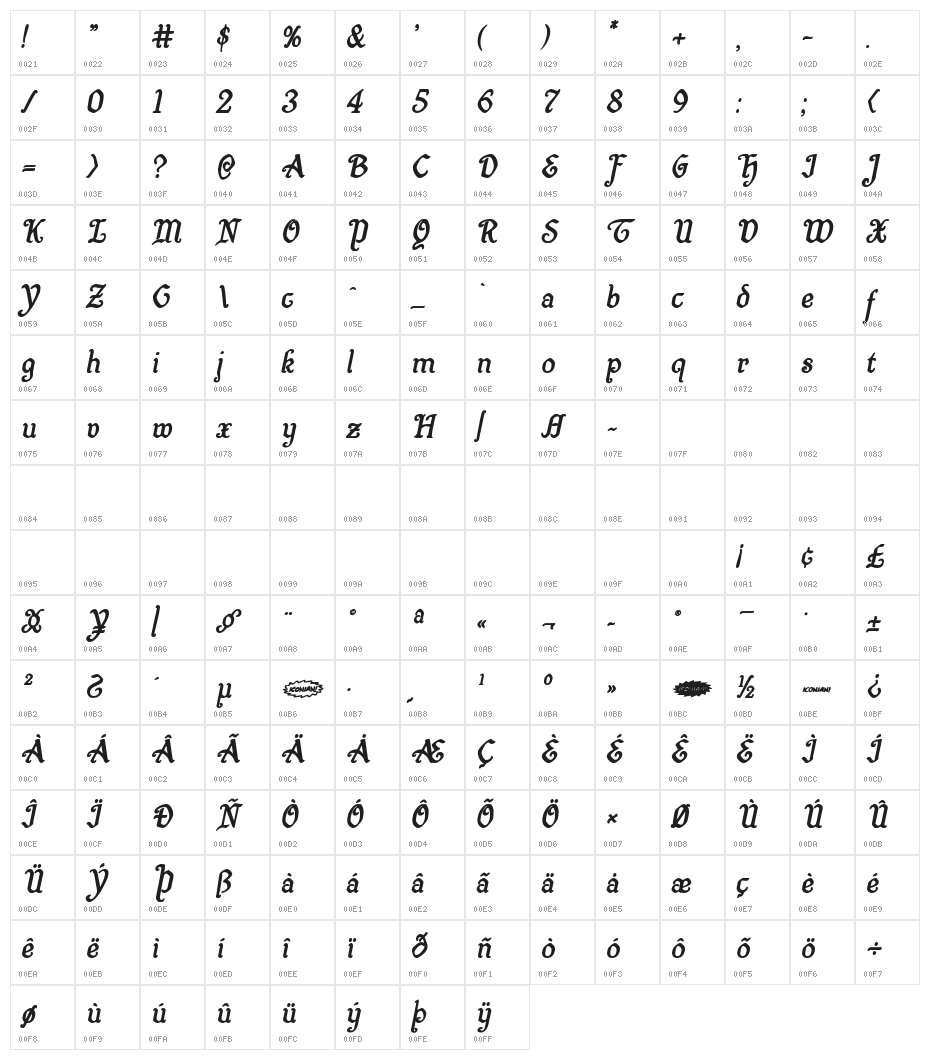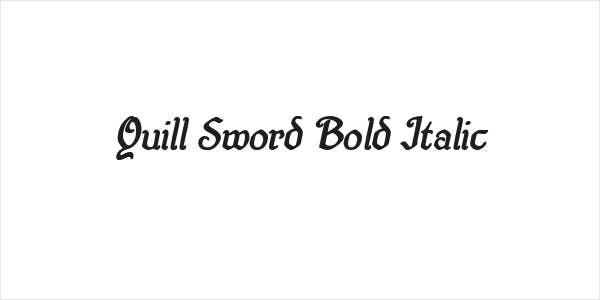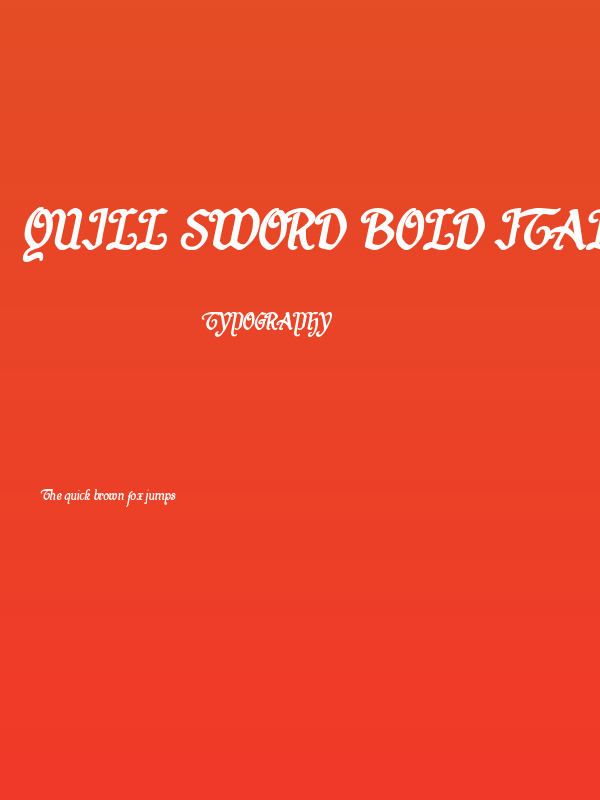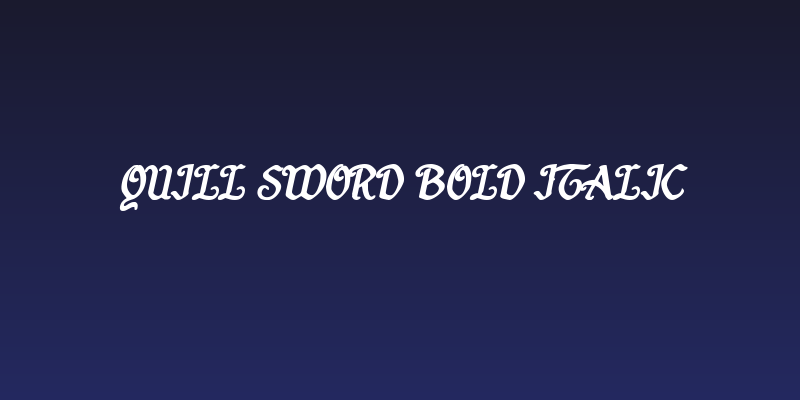
Quill Sword Bold Italic Font
Quill Sword Bold Italic Description
This font features a bold and italicized style with a decorative flair. The characters exhibit a flowing, cursive-like appearance, reminiscent of calligraphy. The uppercase letters are ornate, with exaggerated curves and flourishes, while the lowercase letters maintain a consistent style with slightly less embellishment. The numbers and special characters follow the same decorative theme, ensuring a cohesive look across all glyphs. The overall design is both elegant and expressive, making it suitable for projects that require a touch of sophistication and creativity.
QUILL-SWORD-BOLD-ITALIC UPPERCASE
QUILL-SWORD-BOLD-ITALIC LOWERCASE
QUILL-SWORD-BOLD-ITALIC OTHER CHARS